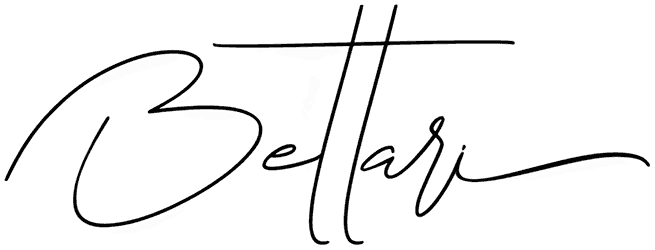
Bettari Font
Finding a wonderful script font to utilize in a design might be difficult, but RB is here to help you with a trendy and fantastic signature font. With the Bettari font, creating a unique and eye-catching design is a breeze.
Its narrow, slightly out-of-reach letters are perfect for conveying reliability and friendliness. Certifications, hand-lettered signs, logos, posters, and others can all benefit from such a flexible design.